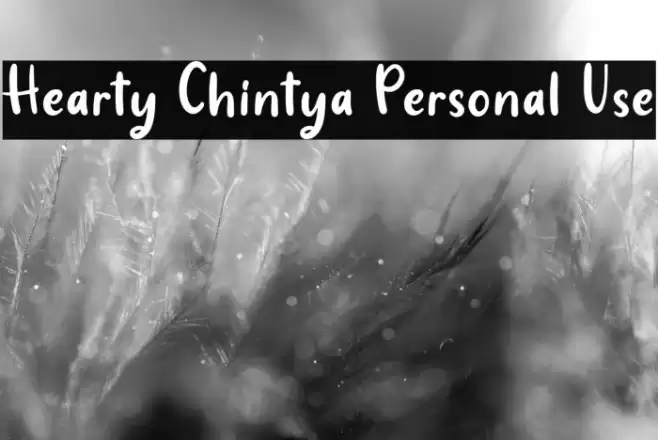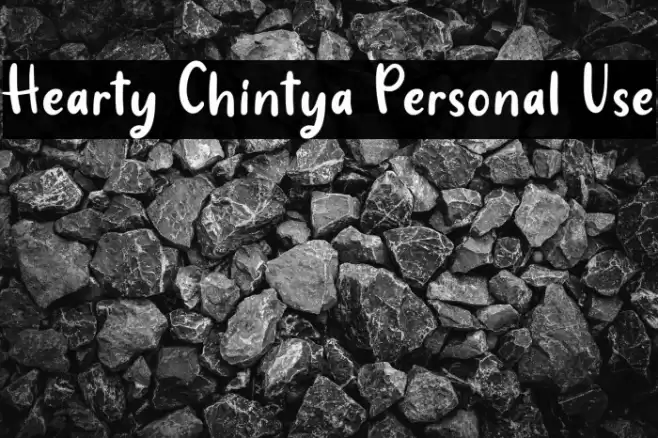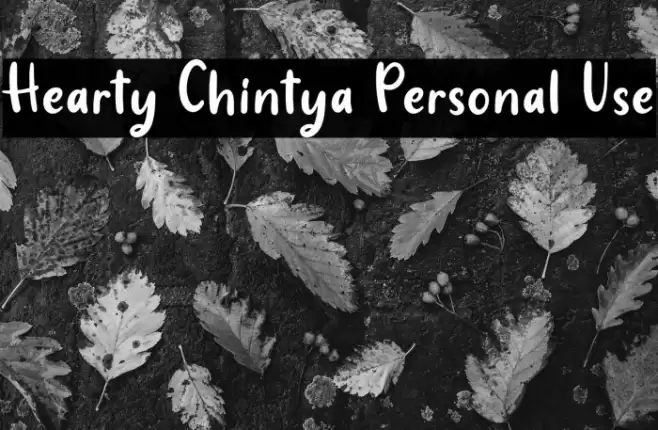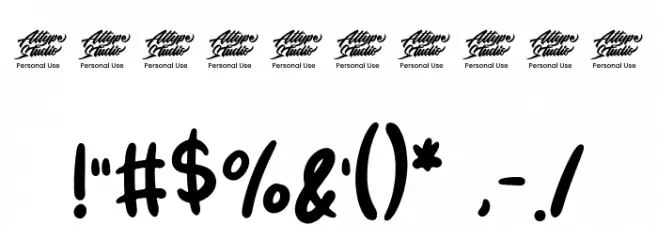
Hearty Chintya Personal Use Font
Hearty Chintya Personal Use Description
This font features a playful and friendly handwritten style, characterized by its smooth, rounded edges and consistent stroke width. The uppercase letters are bold and slightly whimsical, while the lowercase letters maintain a casual, approachable feel. The numerals and special characters are crafted to match the overall aesthetic, ensuring a cohesive look across all text. The font's design is both modern and versatile, making it suitable for a variety of creative projects. Its informal style adds a personal touch, ideal for conveying warmth and approachability.
A playful, handwritten font with smooth, rounded edges and a friendly style from Regular fonts.
- Proposed Projects: Ideal for greeting cards, invitations, social media graphics, and personal branding.
- Use Case: Logos, Headlines, Informal text